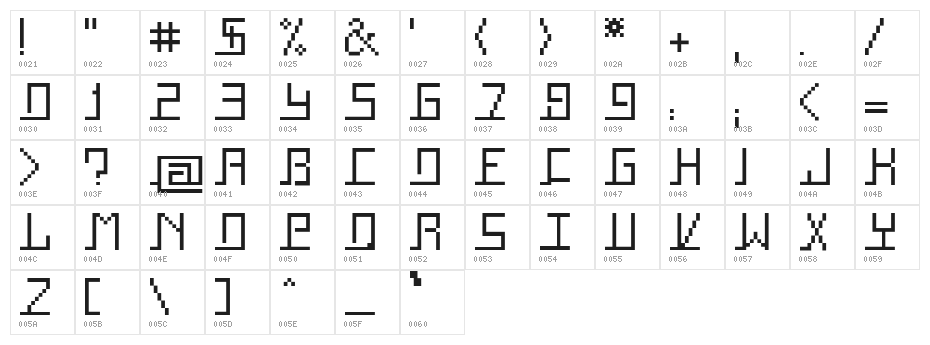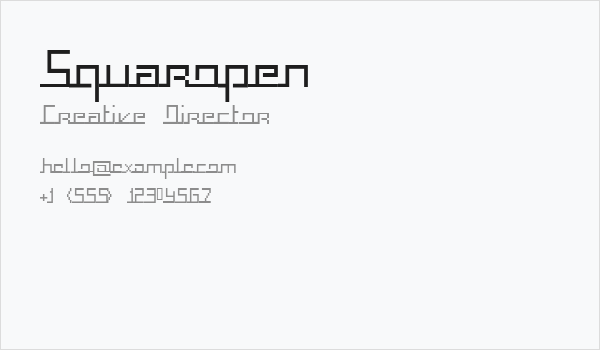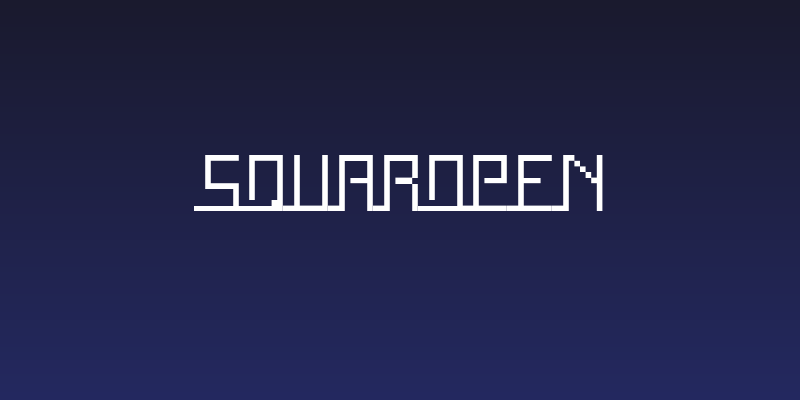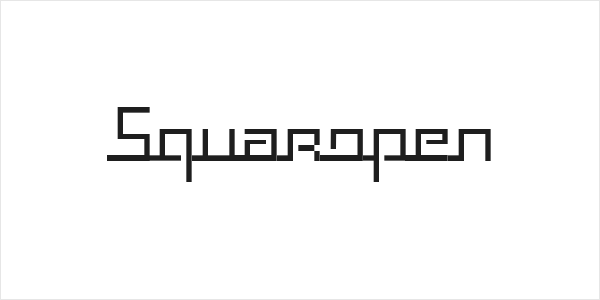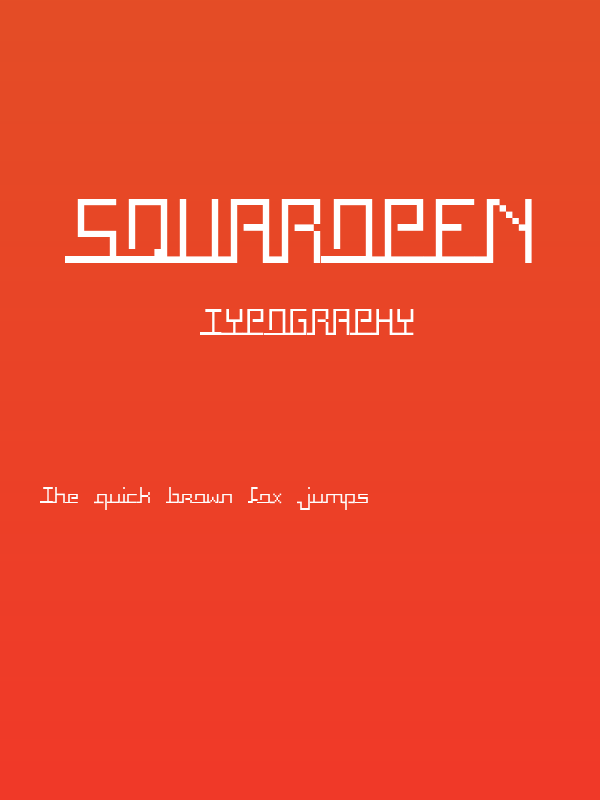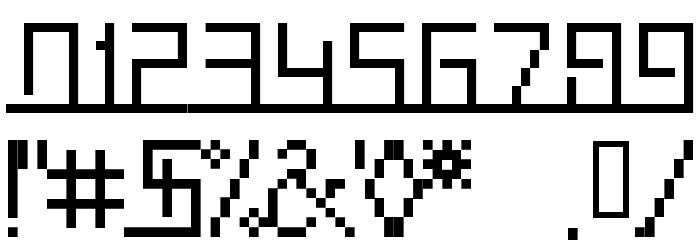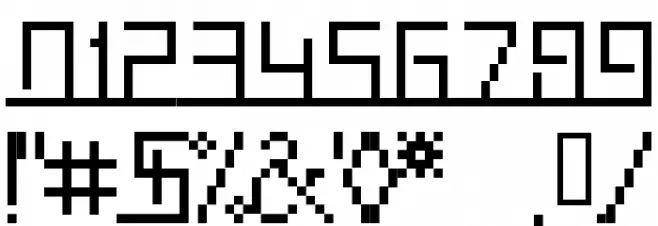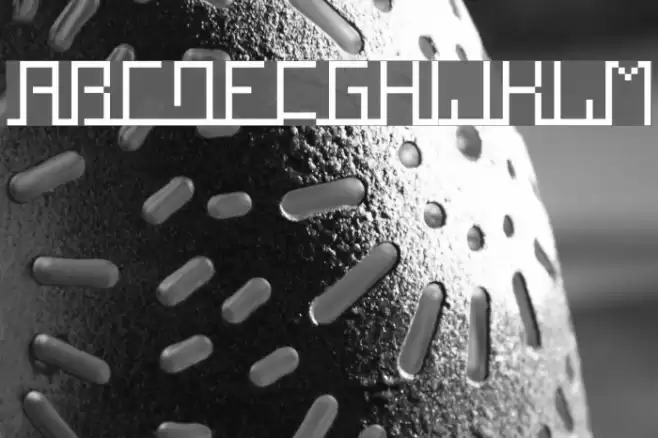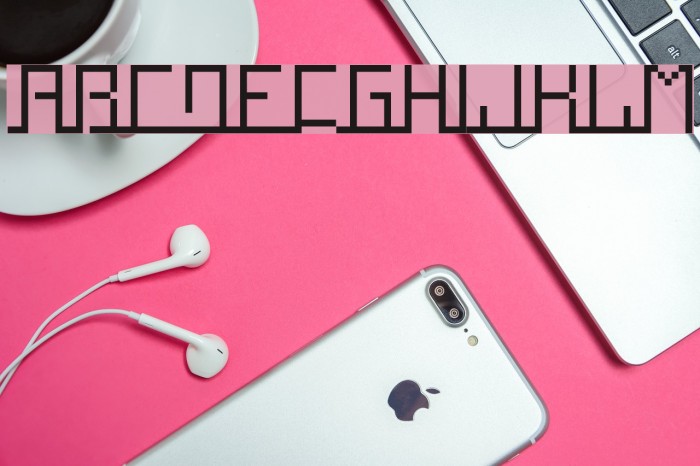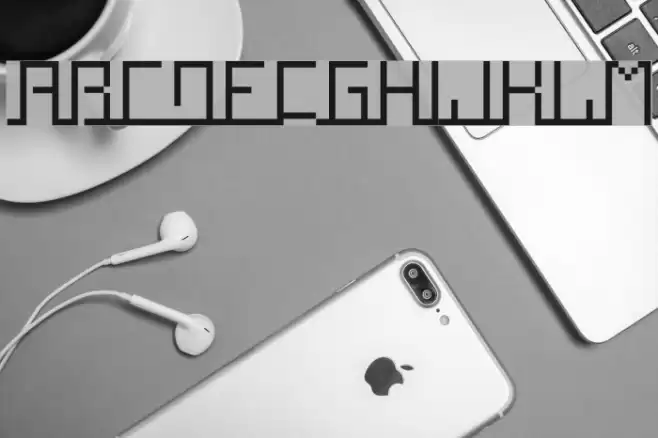
Squaropen Font
Squaropen Description
This font features a geometric, pixelated design that gives it a distinctly digital and modern appearance. Each character is constructed with a series of straight lines and right angles, creating a blocky, grid-like aesthetic reminiscent of early computer graphics or retro video games. The uppercase and lowercase letters maintain a consistent height, contributing to a uniform look across the typeface. The numerals and special characters follow the same design principles, ensuring cohesion throughout. The font's minimalistic and structured style makes it suitable for projects that require a futuristic or tech-inspired theme.
| Proposed Projects | Ideal for video game design, tech branding, digital art projects, and retro-themed graphics. |